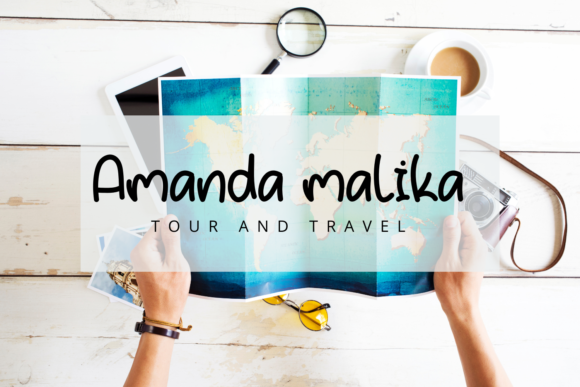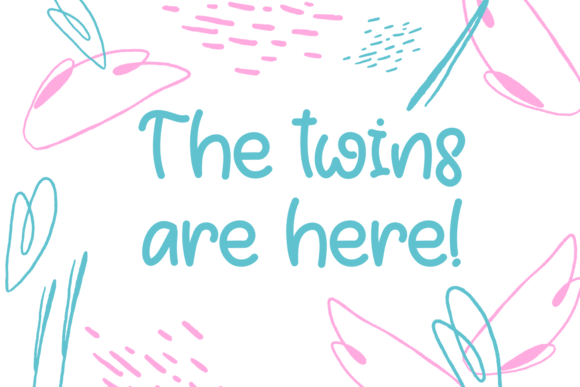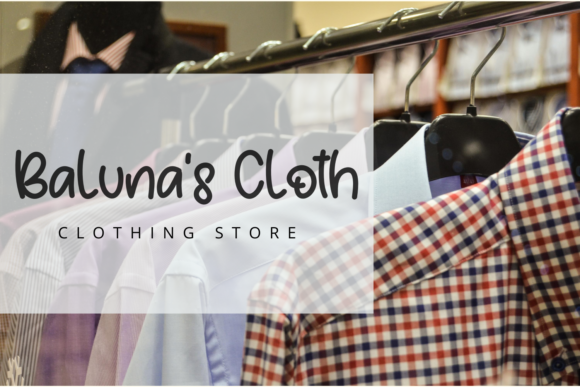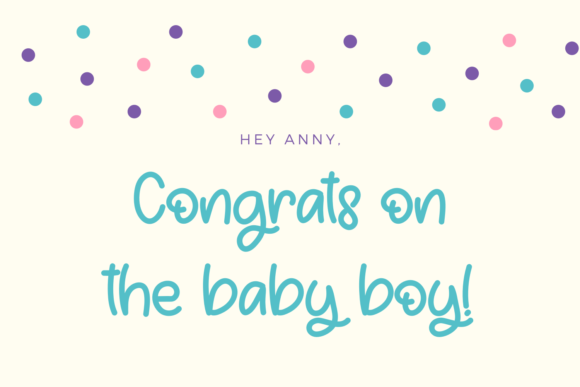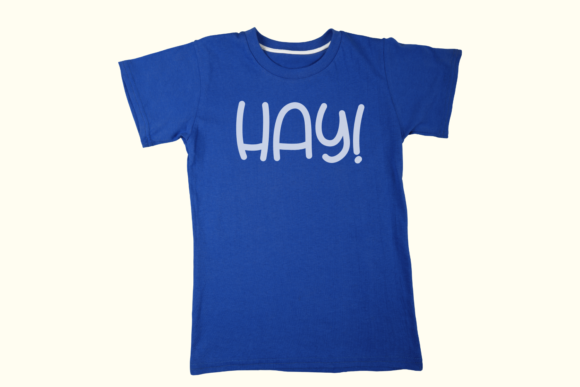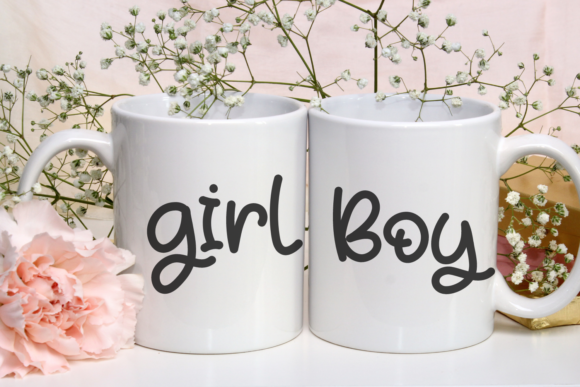
Unleashing the Playfulness of Childhood Memories
Who can resist the charm of a child’s scribbled drawing or a handwritten note from a loved one? It’s those carefree moments that spark our creativity and inspire us to bring joy to our designs. As designers, we often seek fonts that evoke a sense of whimsy and fun, and that’s where the Boyish Font comes in – a delightful, handwritten font that perfectly captures the essence of childhood wonder.
This charming font is designed to add a playful touch to children-themed designs, making it a perfect choice for projects that require a lighthearted and approachable tone. Whether you’re creating illustrations, logos, or social media graphics, the Boyish Font is sure to bring a smile to your audience’s faces. Its versatility and charm make it a valuable asset for designers looking to infuse their work with a sense of playfulness and personality.
Boyish Font Key Features
- Font Family: Boyish Font is a sans-serif font family designed for digital use.
- Size: The font family includes a range of weights from Thin to Bold, with corresponding font sizes.
- Resolution: Boyish Font is designed for high-resolution displays and is suitable for use at resolutions up to 300 DPI.
- Unique Characteristics: The font features a playful, youthful feel with rounded edges and a subtle geometric flair, making it suitable for modern and trendy designs.
Boyish Font Review
When I first laid eyes on Boyish Font, I knew it was something special. The ✨ whimsical touch to the design is undeniable, and it immediately caught my attention. The font’s playful feel is perfect for anything from children’s book covers to trendy brand logos.
The design team behind Boyish Font has done a great job of creating a unique, hand-drawn aesthetic that’s both charming and versatile. I particularly love how the font’s irregularities add to its personality, making it stand out in a world of more straightforward, sans-serif fonts.
- ✨ Unique, hand-drawn aesthetic
- Perfect for children’s content or playful brands
- Highly versatile and adaptable to various contexts
- ⚠️ Limited in formal or professional contexts
- May not be ideal for body text, due to its playful nature
- Could be overwhelming if used excessively
Overall, Boyish Font is a solid choice for anyone looking to add some personality to their design. While it may not be suitable for every project, its unique charm and versatility make it a great addition to any designer’s toolkit.
Tips for Getting the Most Out of Boyish Font
Use Boyish Font to create a playful and youthful atmosphere in your designs.
Pair it with bold and bright colors to create a fun and energetic vibe.
Experiment with different font sizes and alignments to create visual interest.
Boyish Font is perfect for:
Children’s book covers
Party invitations
Summer camp promotional materials
Any design that needs a playful and youthful touch
Alternatives to Boyish Font
Lato is a modern sans-serif font designed by Łukasz Dziedzic. It’s perfect for use in digital products, magazines, and websites where a clean and elegant look is required.
Compared to Boyish Font, Lato has a more minimalist approach and lacks the distinctive rounded features. It’s suitable for a wide range of applications, including corporate and personal projects.
Montserrat is a sans-serif font designed by Julieta Ulanovsky. It’s ideal for use in urban, modern, and creative projects where a strong and bold feel is desired.
Unlike Boyish Font, Montserrat has a more geometric and condensed feel, making it perfect for headlines and titles. It’s also highly legible, even at small font sizes.
Open Sans is a modern sans-serif font designed by Steve Matteson. It’s widely used in digital products, including Google’s own products, due to its clean and neutral appearance.